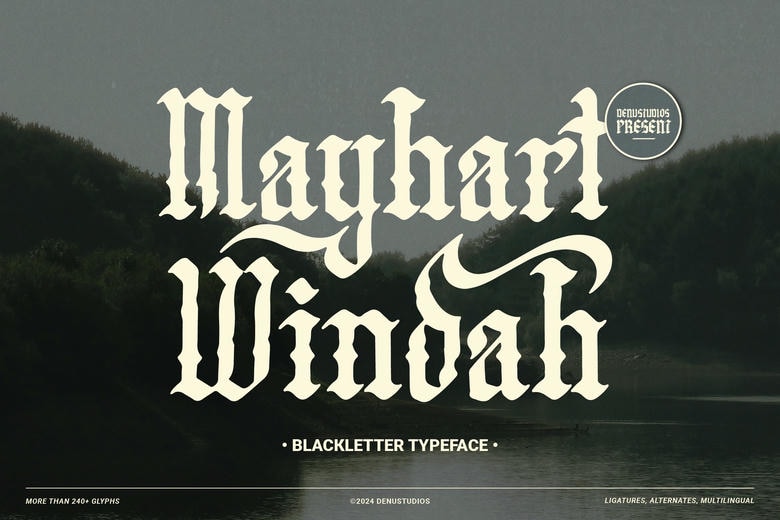
Mayhart Windah Font
Mayhart Windah is a Blackletter typeface, influenced by Gothic style lettering for brave women that will challenge any lettering test. Due to its somewhat menacing look, fine grain and heavy weight, it is precise for projects where drama and eternal design is desired.
Ideal for printing a company name or a short slogan, album covers, posters, and, finally, the lettering for tattoos, this font is based on classical scripts with a contemporary twist. The font’s features include how it has ligatures, alternates and supports multiple languages which make it even more versatile for use in designing rather creative and unique, personalized text outputs.
Mayhart Windah Blackletter Font